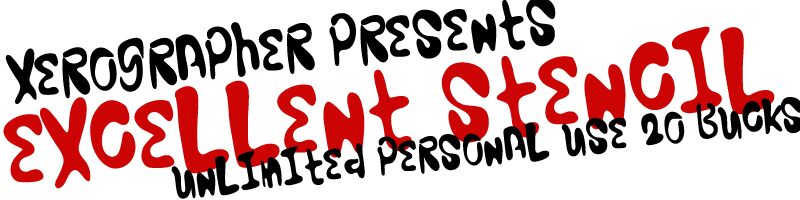
ExcellentStencil by Max Infeld of Xerographer.com is a free groovy display font with swollen, wavering letters and an unmistakable 1970s streak. Its uneven widths, pinched joins, and liquid curves create a dense silhouette that feels hand-cut rather than mechanically smooth.
It is especially convincing on music posters, where the rolling shapes suit psychedelic and experimental acts. The same unruly lettering can enliven record sleeves, festival merchandise, and youth-oriented branding. Here, the words become part of the artwork.